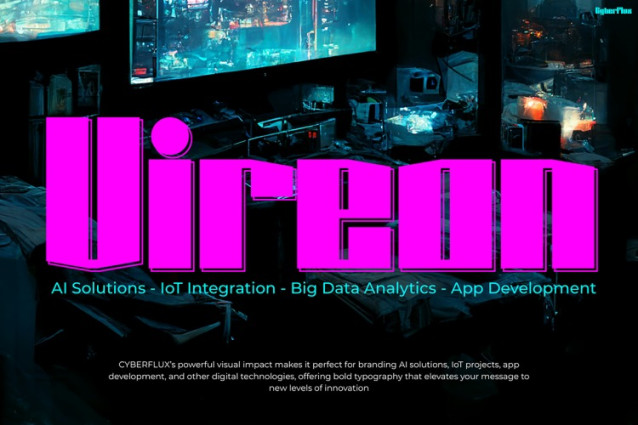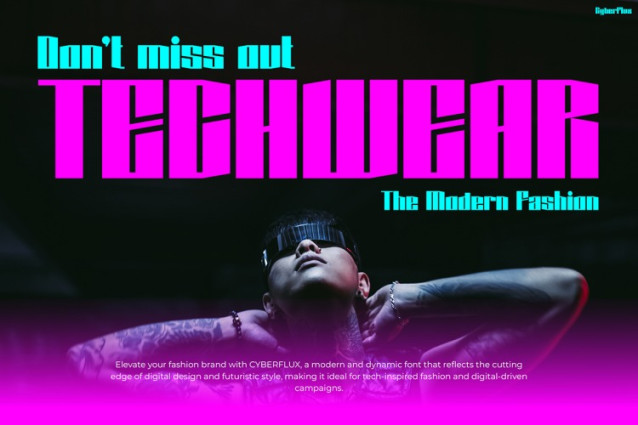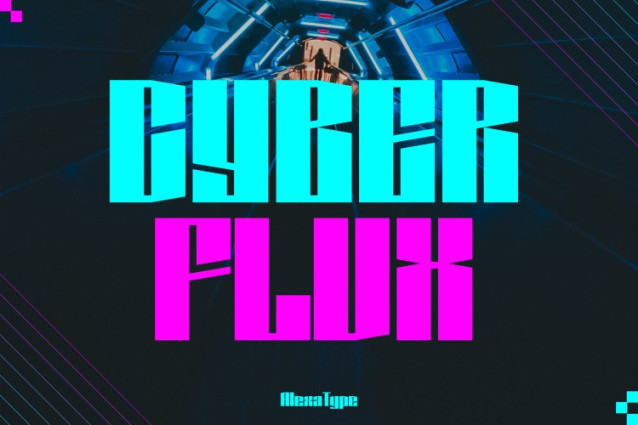
Cyberflux Font
Cyberflux font instantly gives your designs a bold digital identity. Its sharp cuts, modular shapes, and sleek edges exude a sci-fi flair. As soon as you use it, your images will feel like they belong to the future. With a layout that balances technological precision and creative style, this font not only looks different, but also sets your brand apart.
What’s more, Cyberflux doesn’t just bring style. Its geometric consistency and modern alignment ensure high readability while making a strong impact. Whether you’re designing for screen, print, posters, or packaging, this font will hold up in any format. In fact, its clean lines and impressive structure make it a great choice for futuristic branding.
Thanks to its cyberpunk aesthetic, Cyberflux works particularly well in themes related to virtual worlds, digital fashion, and cutting-edge technology. When paired with a neon or metallic color palette, the font creates a visual intensity that grabs attention. Plus, its bold personality helps you build a brand that feels ahead of its time. This makes Cyberflux a top choice for designers who want a typeface that feels bold, relevant, and unmistakably modern.
Cyberflux is ideal for designers, digital artists, and forward-thinking brands. For example, fashion brands exploring the techwear theme will benefit from its bold style. Likewise, game creators, VR developers, and NFT artists will find its style a perfect fit for immersive, digital-first environments.
Additionally, marketing teams and content creators can use Cyberflux to give campaigns a high-tech, standout look. Whether you’re running a futuristic product launch, a cyber-themed event, or a digital fashion launch, this font will help you make an unforgettable statement.
Even startup founders can use Cyberflux to create a bold visual identity that challenges the norm and sparks curiosity.
Step into the future with Cyberflux. Whether you’re building a brand or creating a one-off project, this font will help your message break through. Embrace the bold. Own the future. Start designing with Cyberflux today.